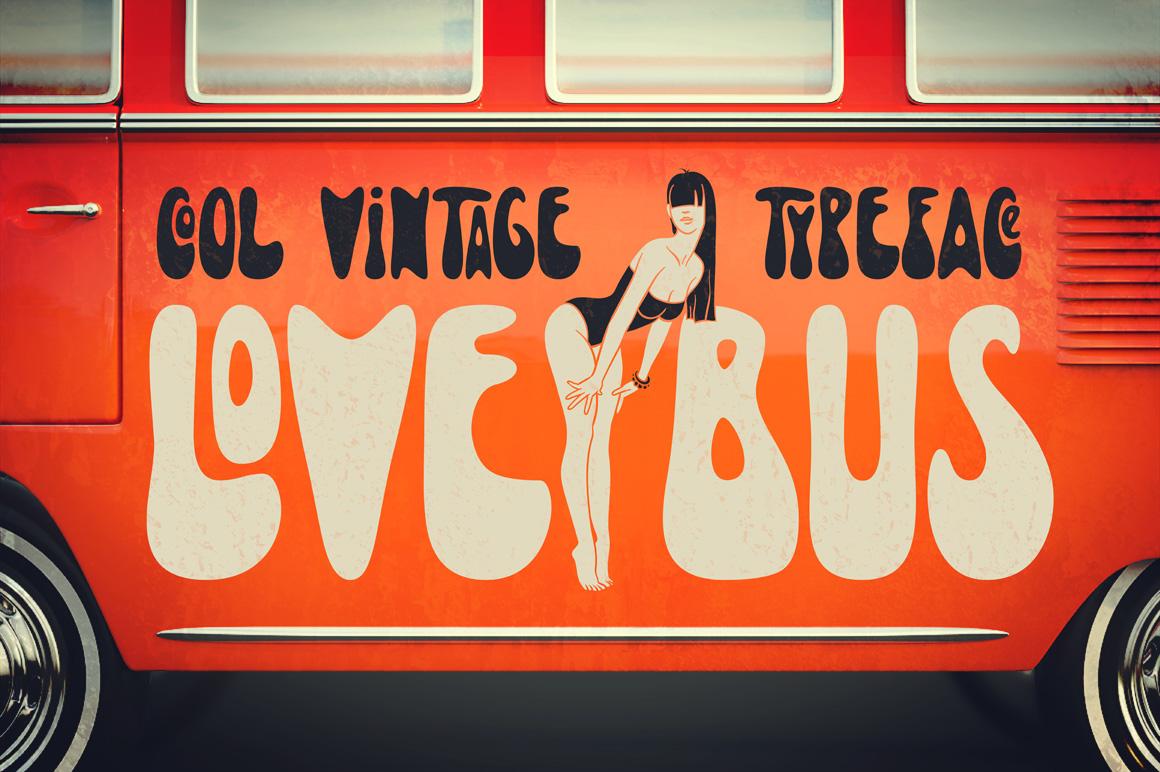
Lovebus Font Description
Lovebus is a vintage font that is inspired by the sixties. This ‘hippie’ font is create for creating authentic designs.
The Lovebus font comes with 26 automatically replaceable ligatures which will give your text a unique look.